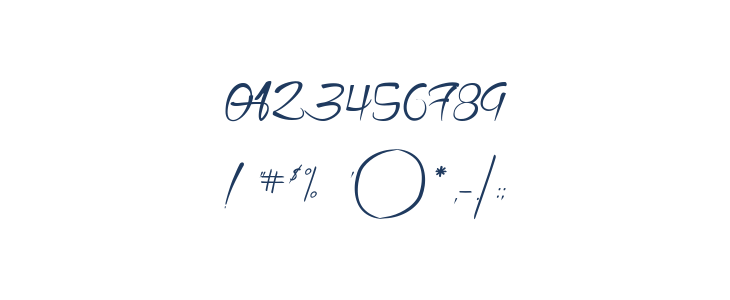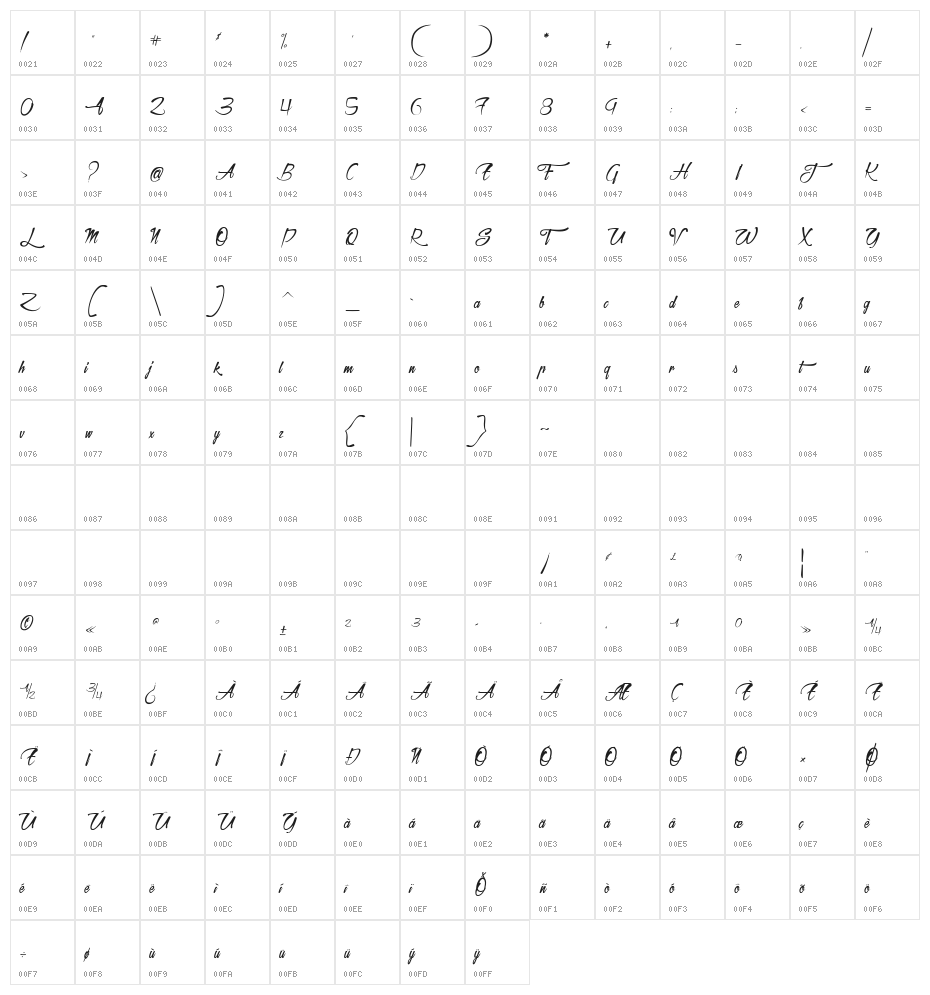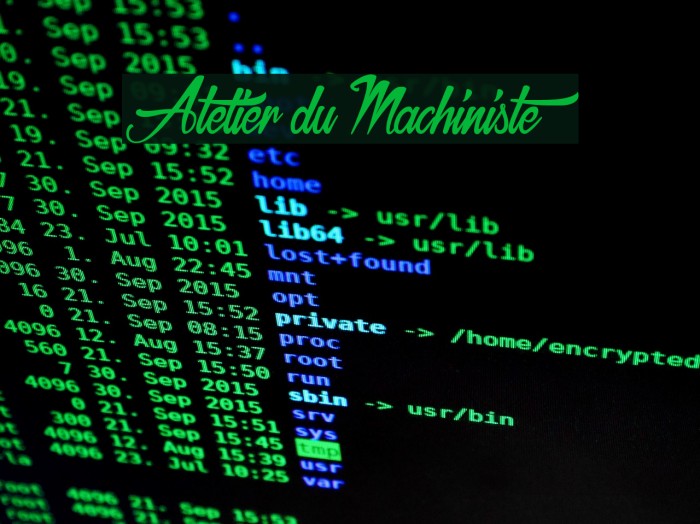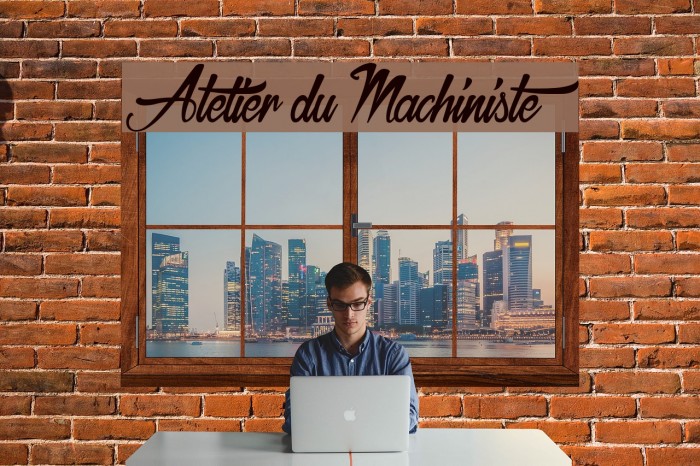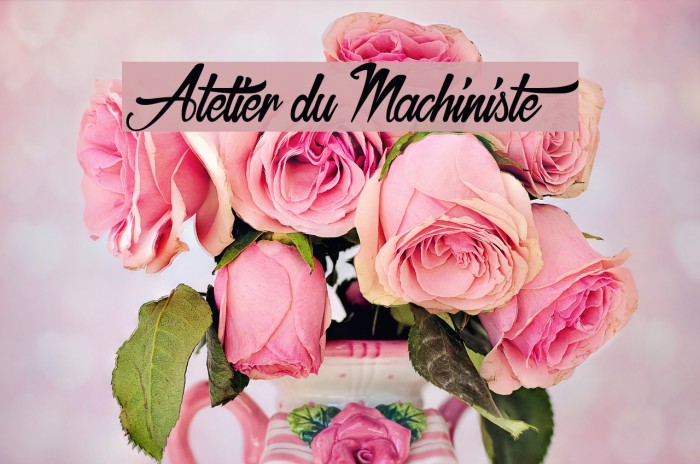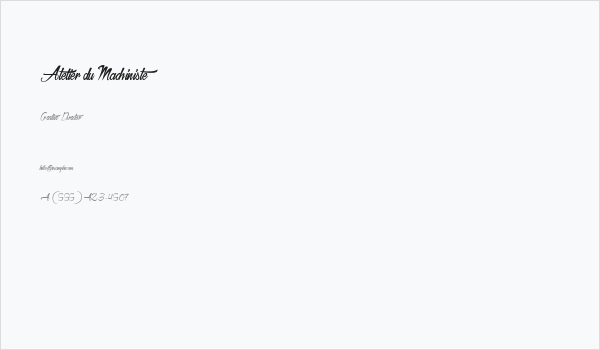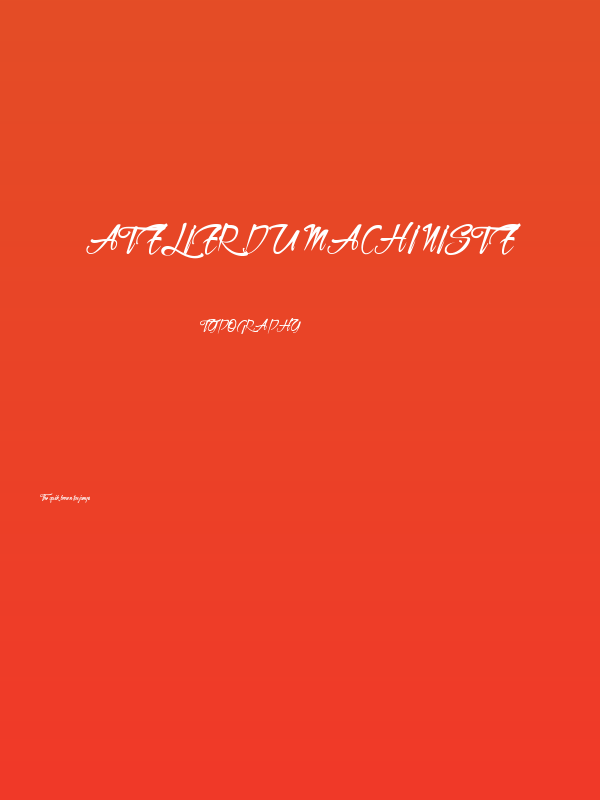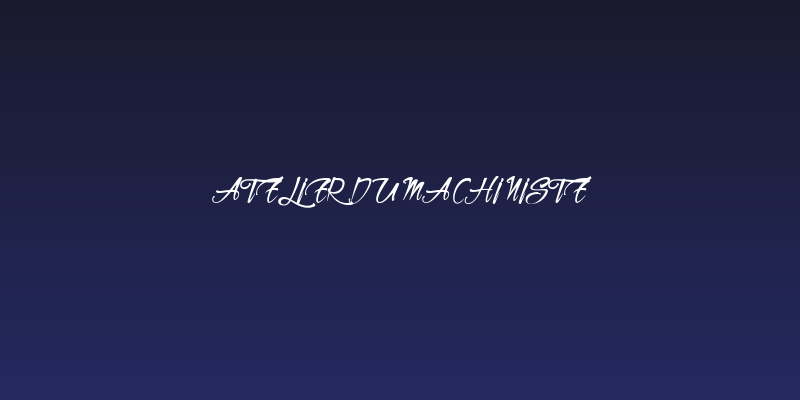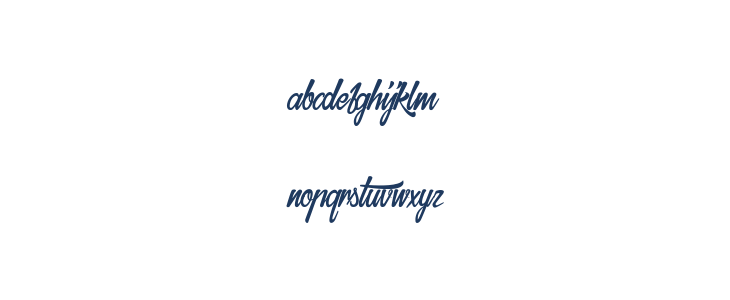
Atelier du Machiniste Font
Atelier du Machiniste Description
This font exudes a sense of elegance and sophistication, characterized by its flowing, cursive style. The uppercase letters are bold and sweeping, with intricate loops and flourishes that give it a dynamic and artistic flair. The lowercase letters maintain a consistent style, with smooth curves and a slightly condensed form that enhances readability while retaining a decorative touch. The numerals are uniquely styled, blending seamlessly with the overall aesthetic, and the special characters are crafted with the same attention to detail, making them an integral part of the font's design. This font is perfect for projects that require a touch of elegance and creativity.
| Proposed Projects | Ideal for wedding invitations, luxury branding, elegant signage, and artistic projects. |